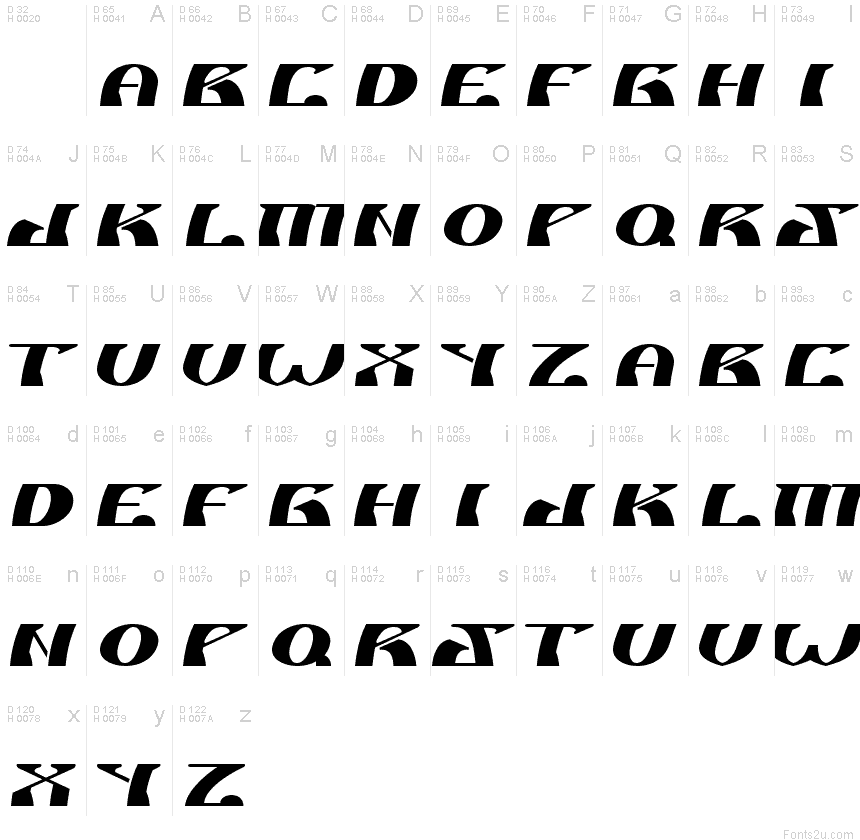
Nu shto
Nu Shto font by Levi is a free retro display font with sweeping angled letterforms and sharp, sliced curves. The shapes compress and flare within each word, mixing long diagonals, pointed joins, and curved cuts that give the lettering a lively, late-20th-century poster feel.
Nu Shto fits album covers, event flyers, logo marks, title cards, and packaging that need a strong graphic headline. Its carved rhythm and slanted movement also work well for bar menus, magazine mastheads, and short promotional phrases where the lettering itself carries the design.